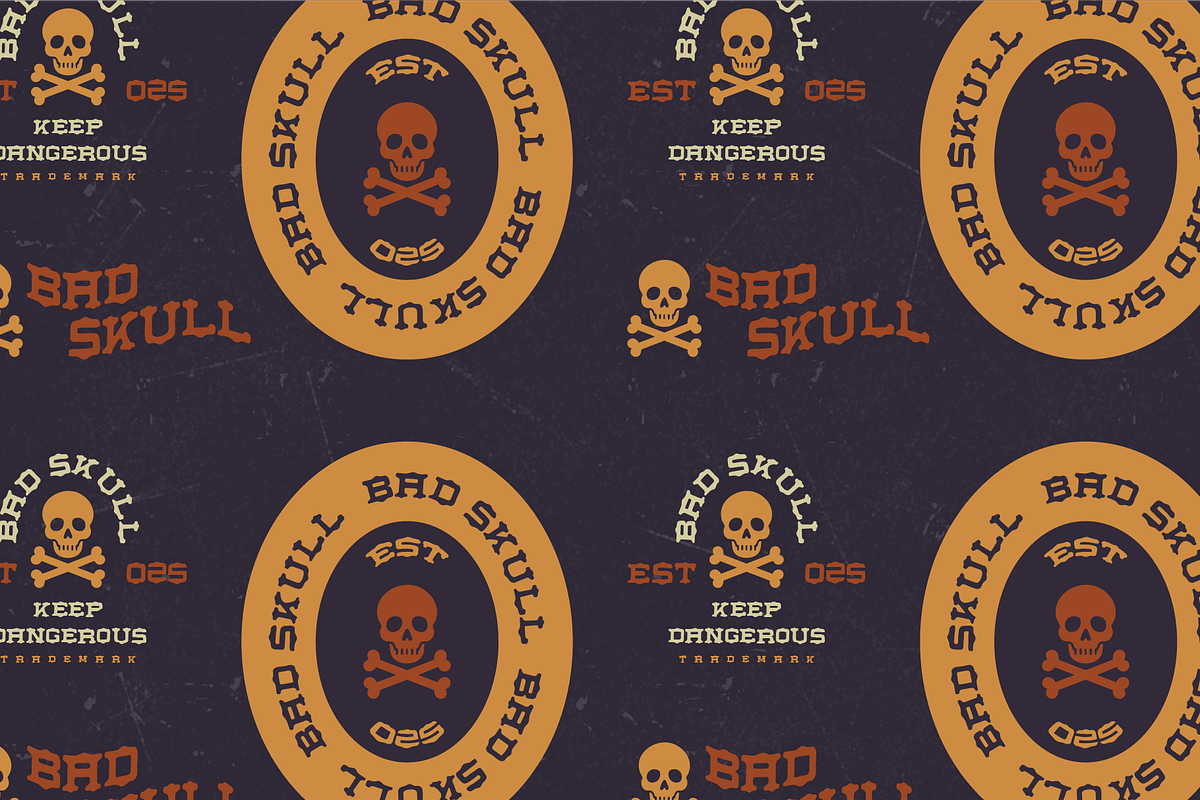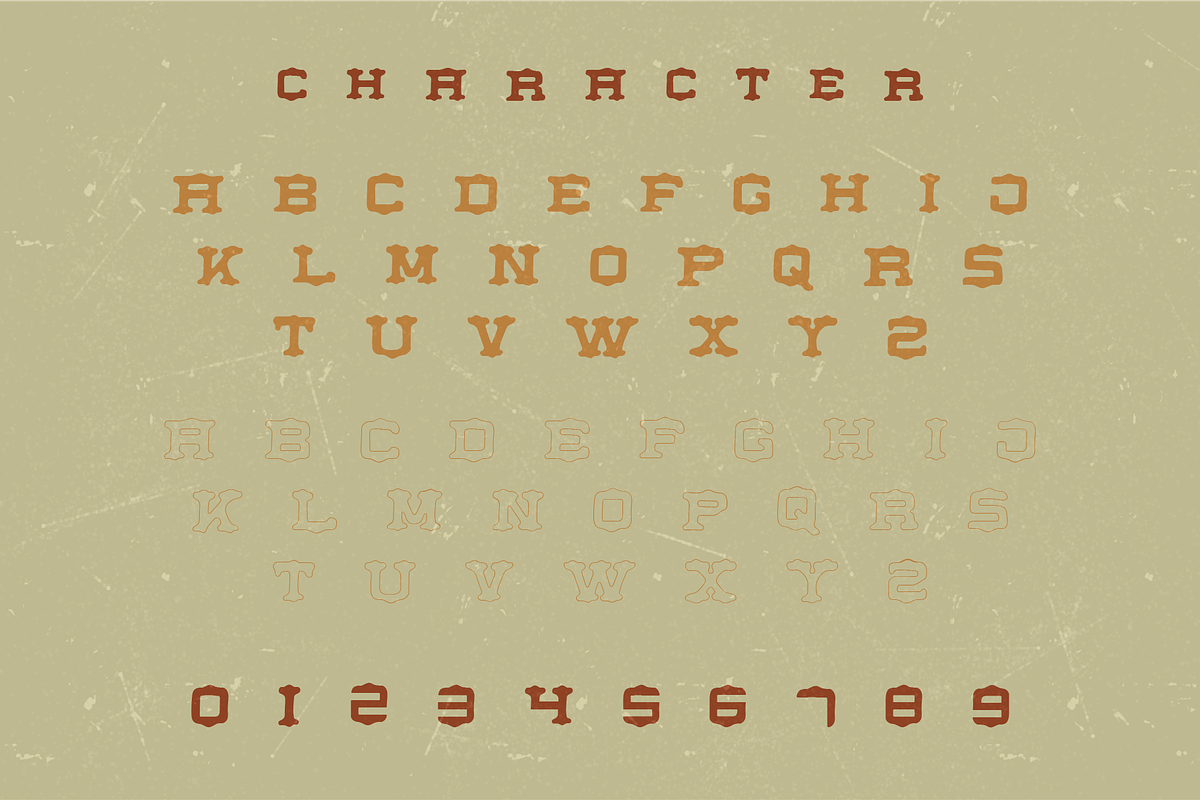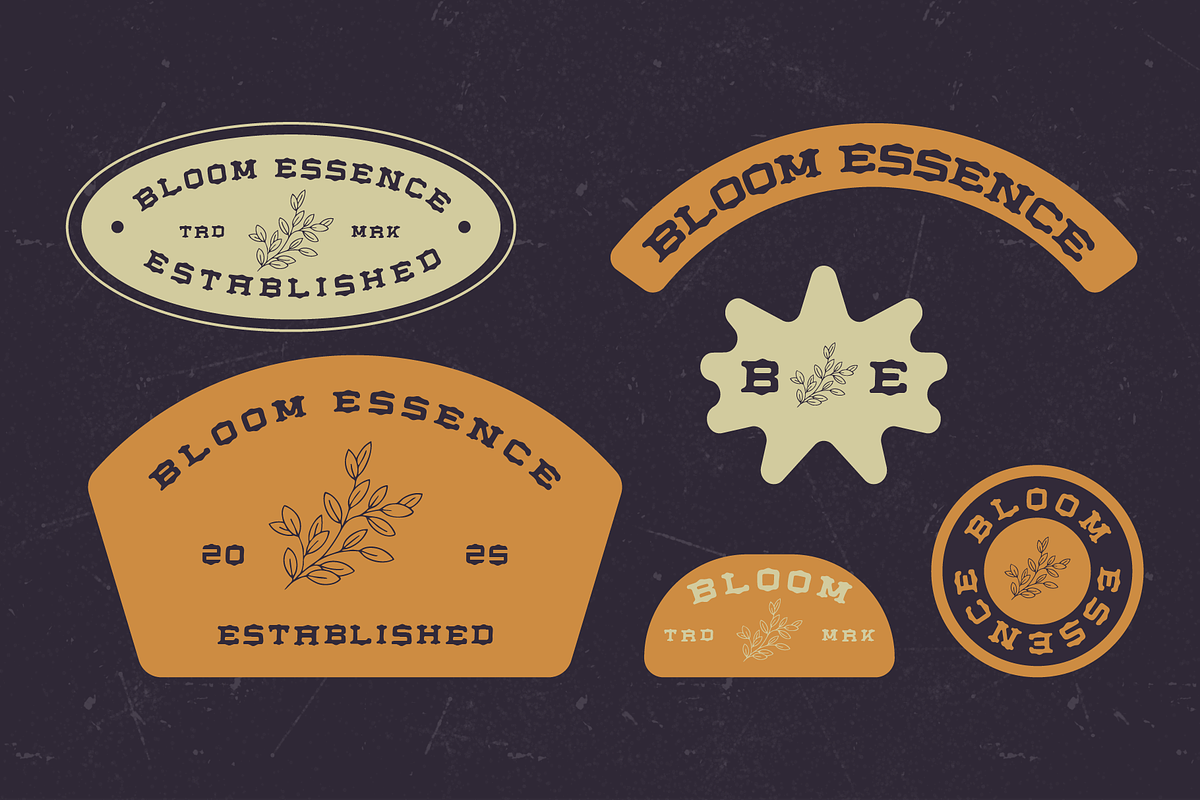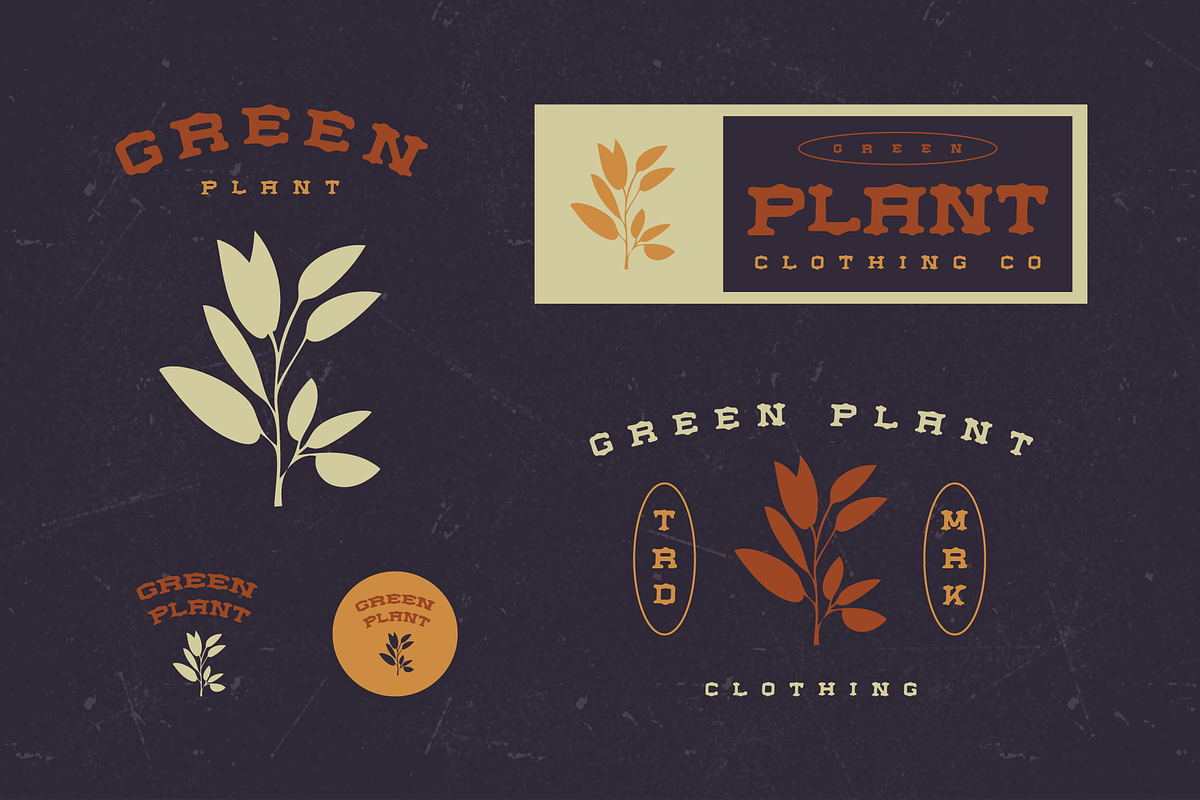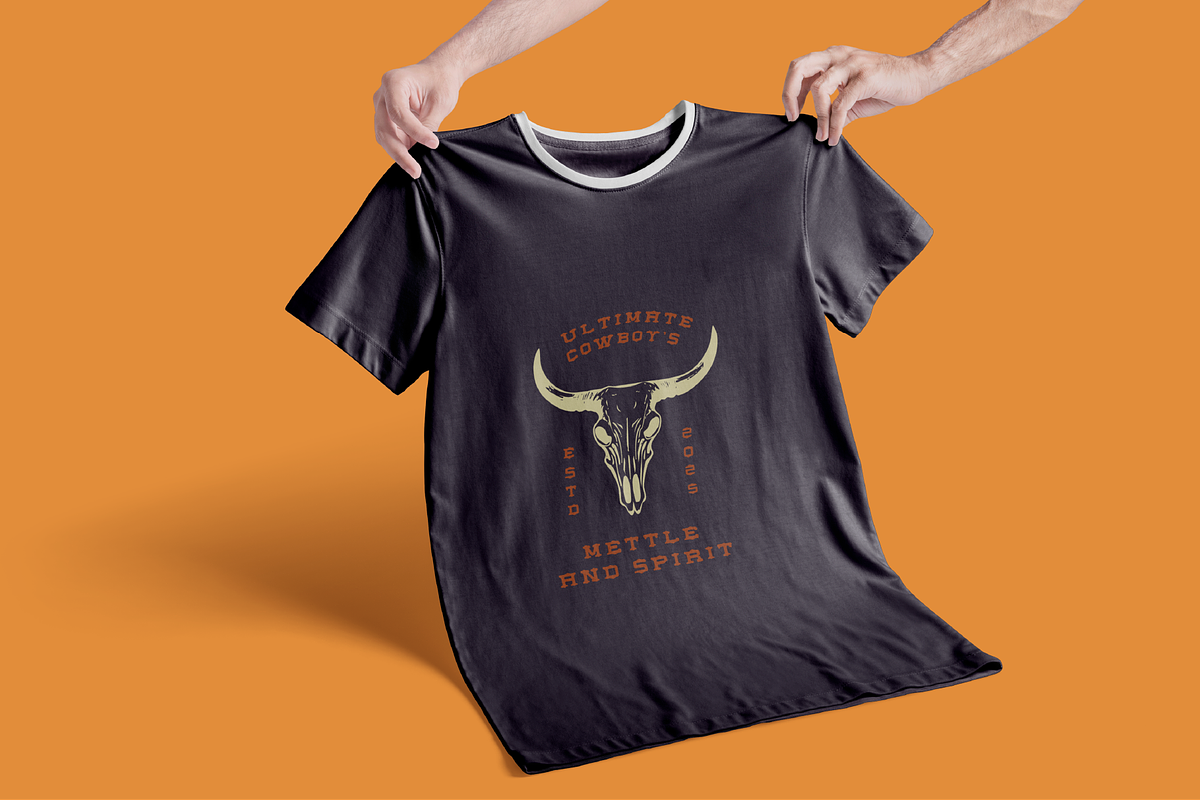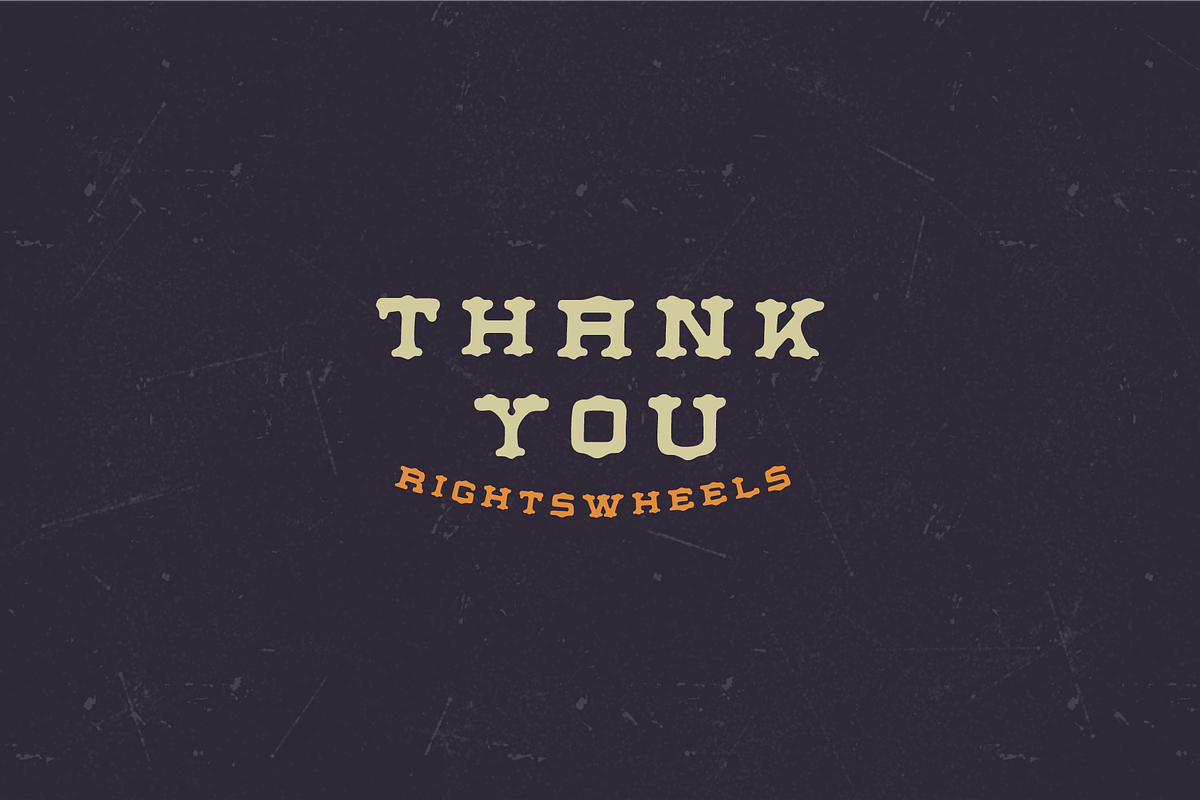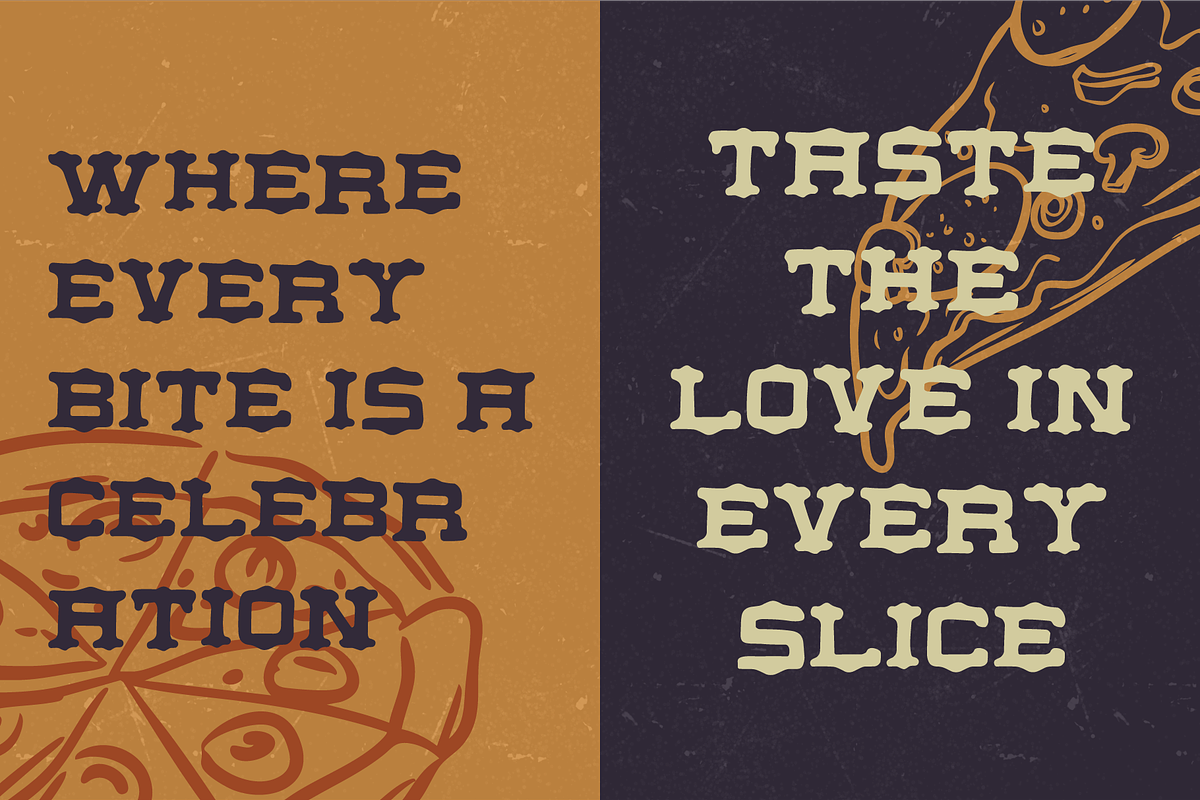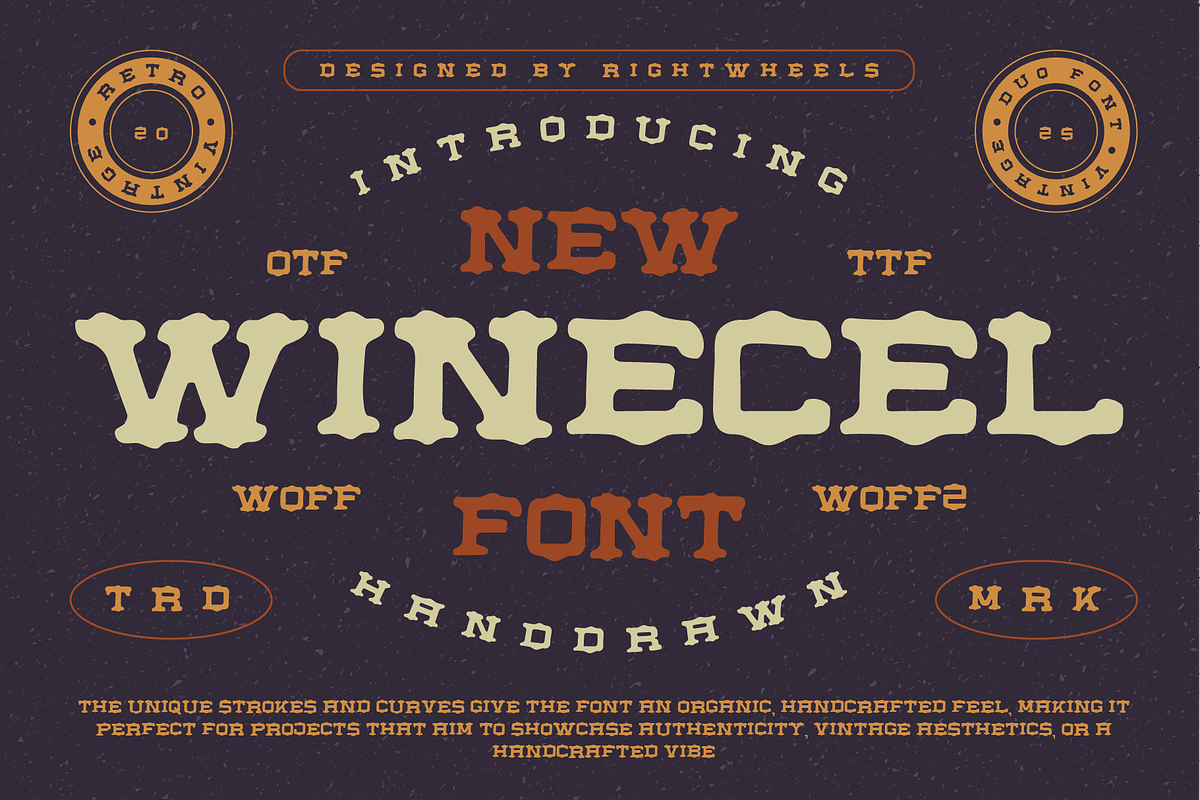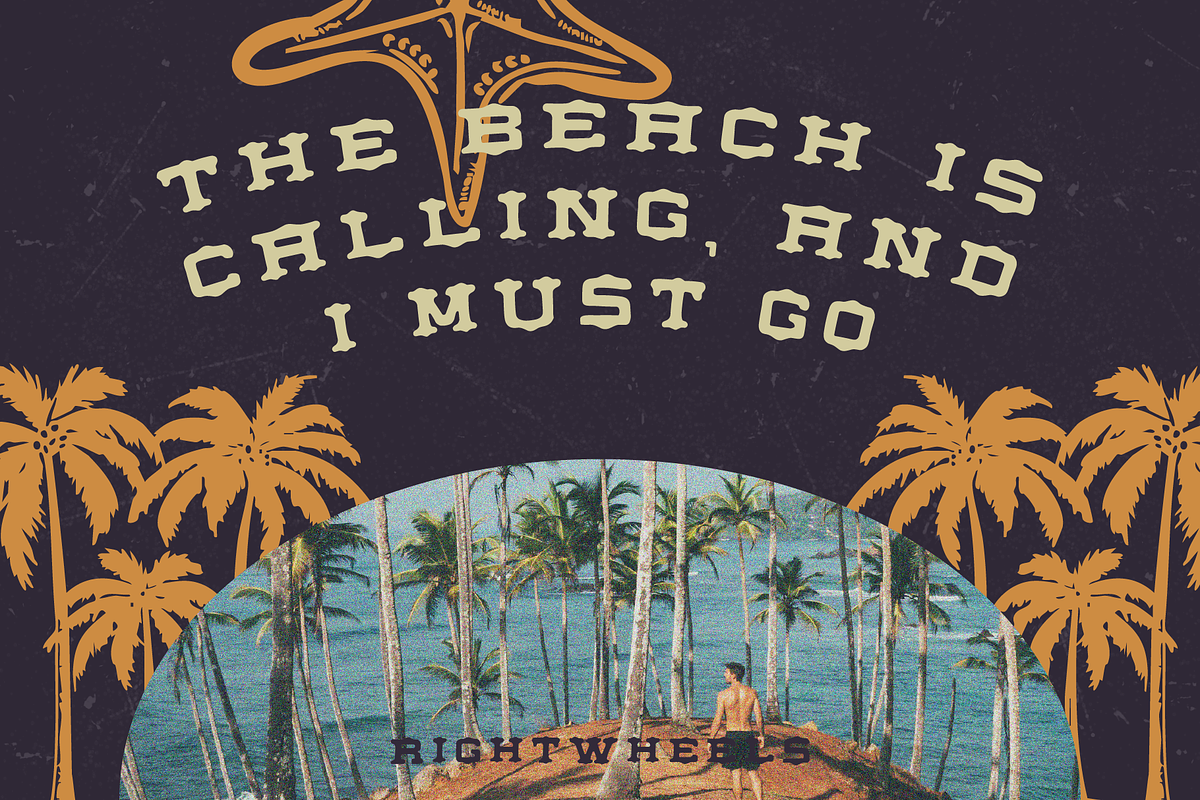
WINECEL - Vintage Display Font
Winecel is a retro-inspired font designed with a vintage hand-drawn concept. It captures the nostalgic charm of old-school lettering, with intricate details that evoke a sense of timeless elegance. The unique strokes and curves give the font an organic, handcrafted feel, making it perfect for projects that aim to showcase authenticity, vintage aesthetics, or a handcrafted vibe. Whether used for branding, packaging, or signage, Winecel adds a touch of retro flair to any design.